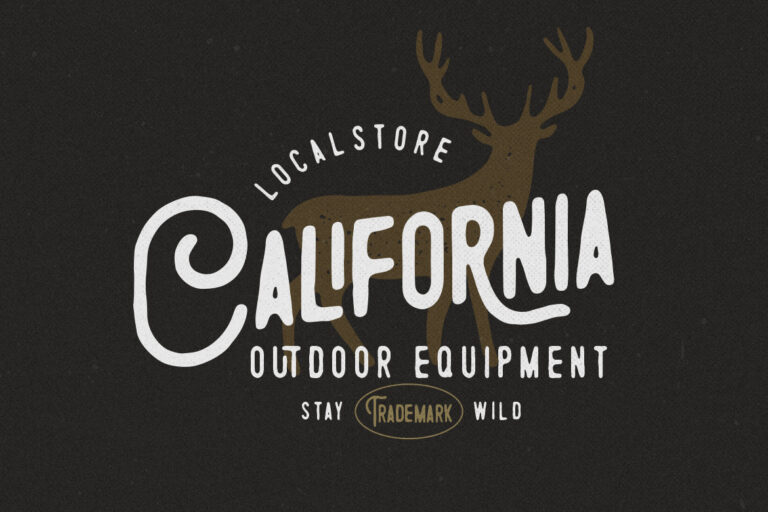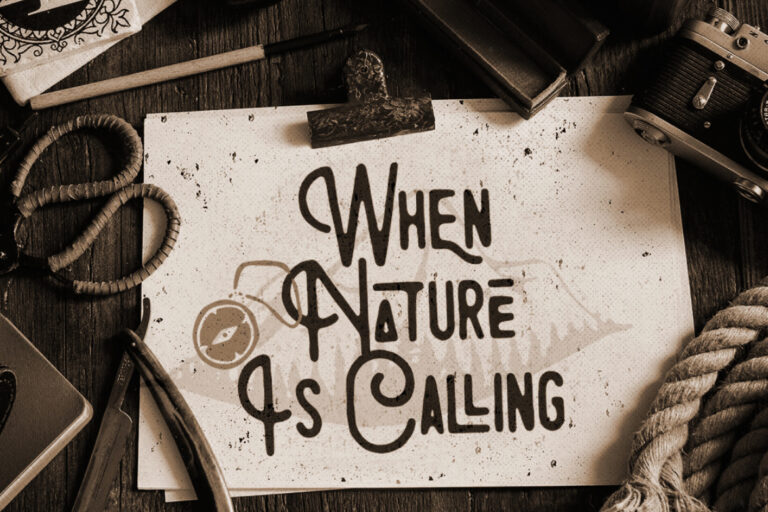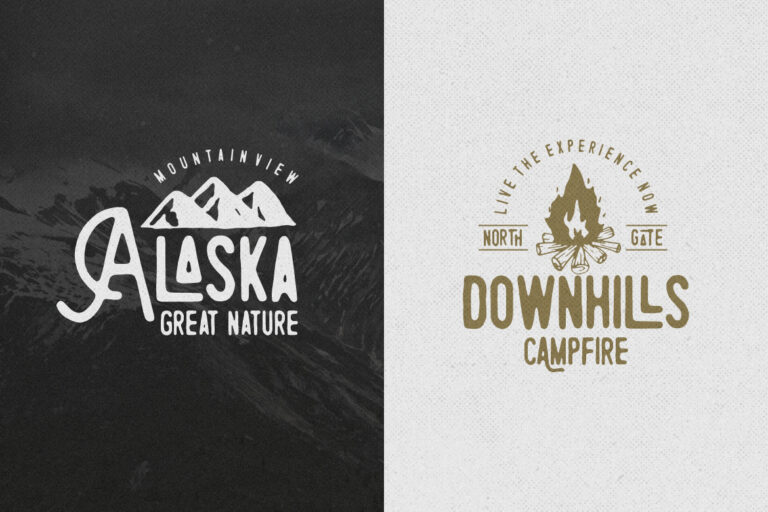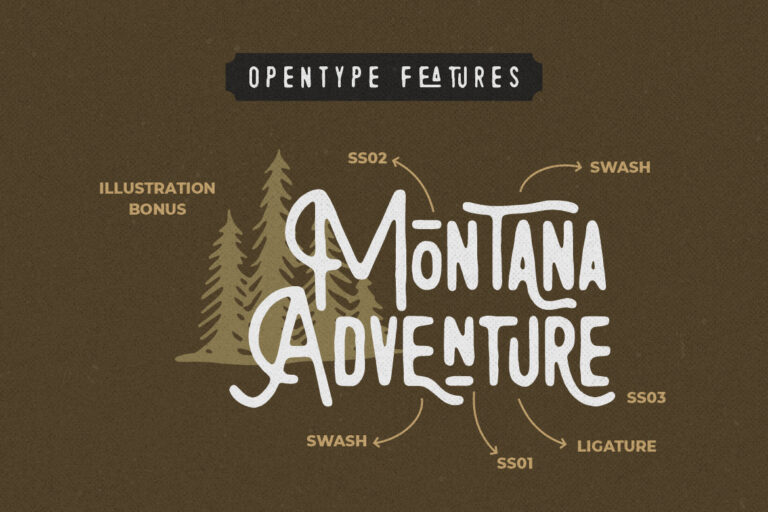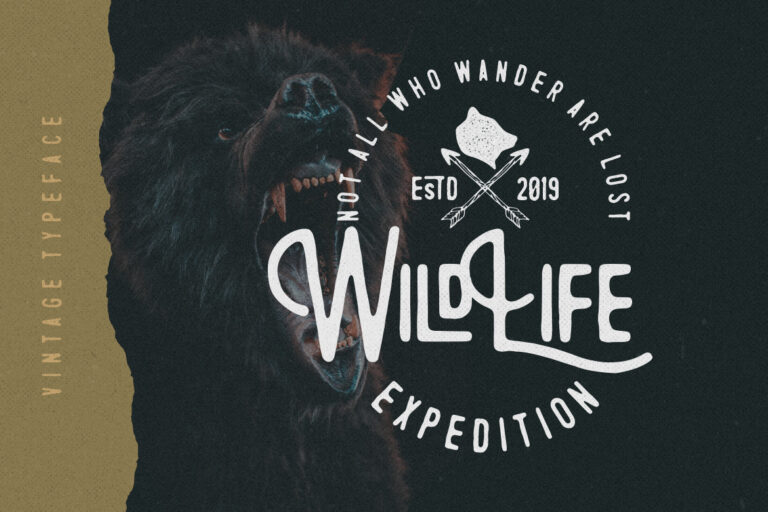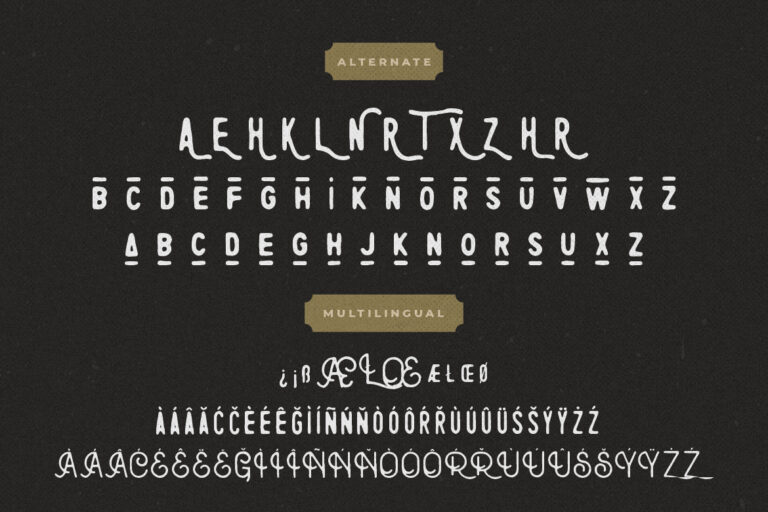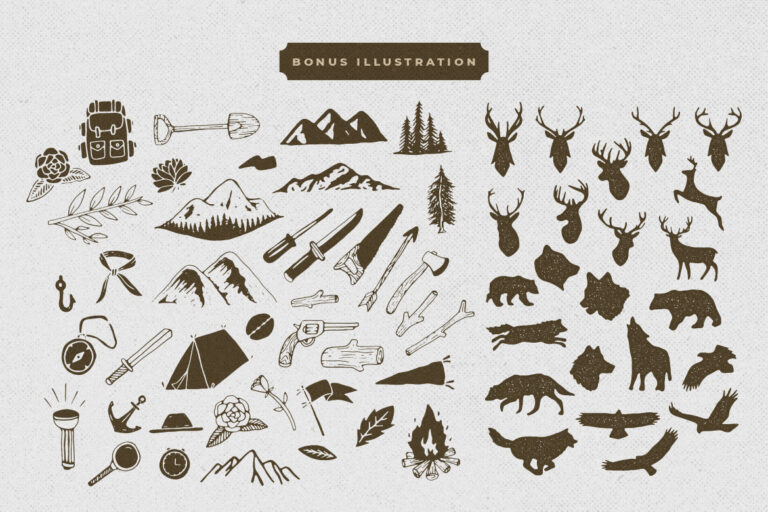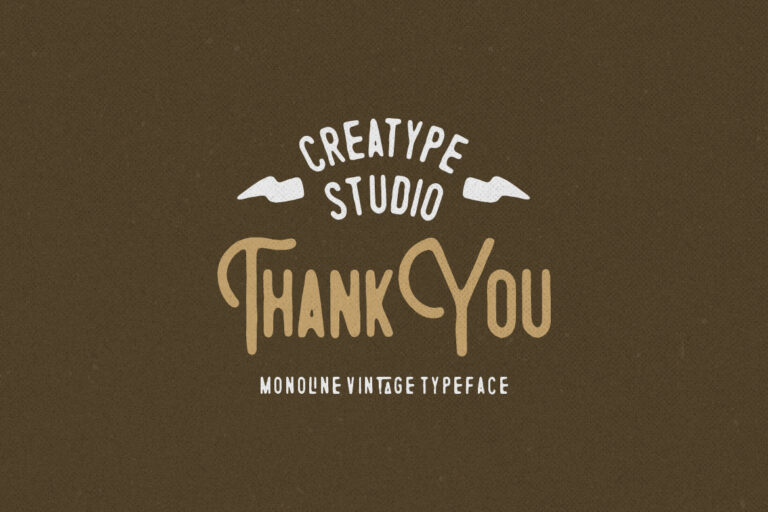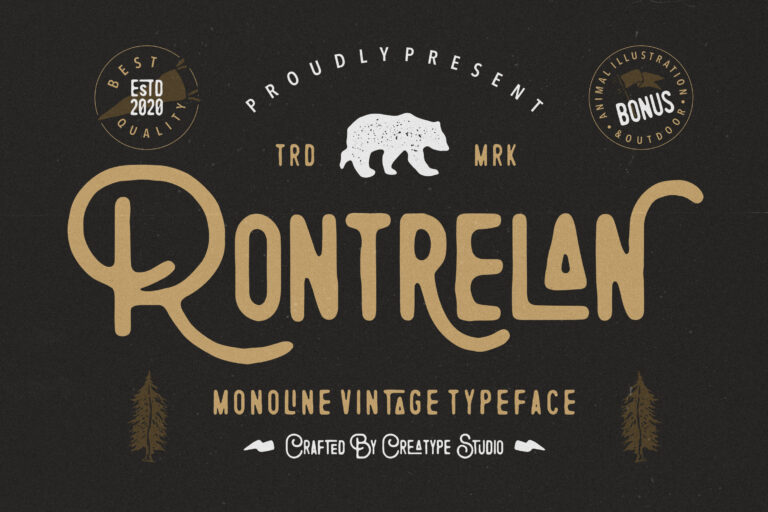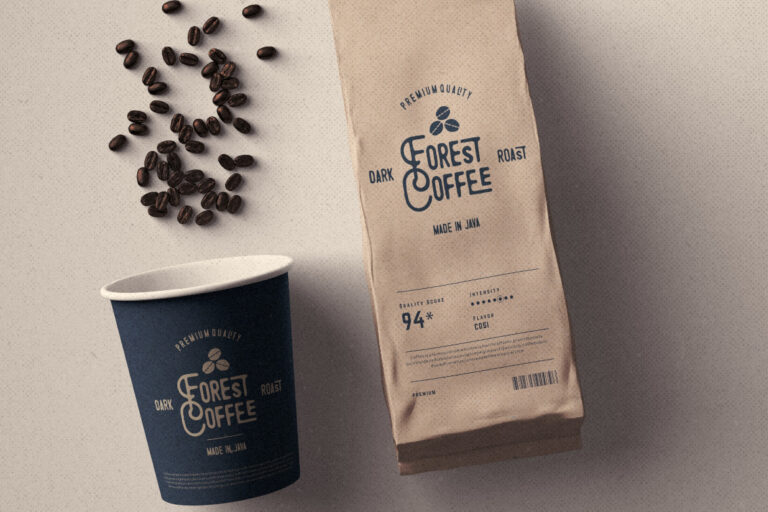
Rontrelan a monoline vintage font with rough looks natural and bonus animal & outdoor illustrations.
Rontrelan would perfect for photography, watermark, social media posts, advertisements, logos & branding, invitation, product designs, label, stationery, wedding designs, product packaging, special events or anything that need handwriting taste.
- Bonus animal & outdoor illustrations
Rontrelan Monoline Vintage